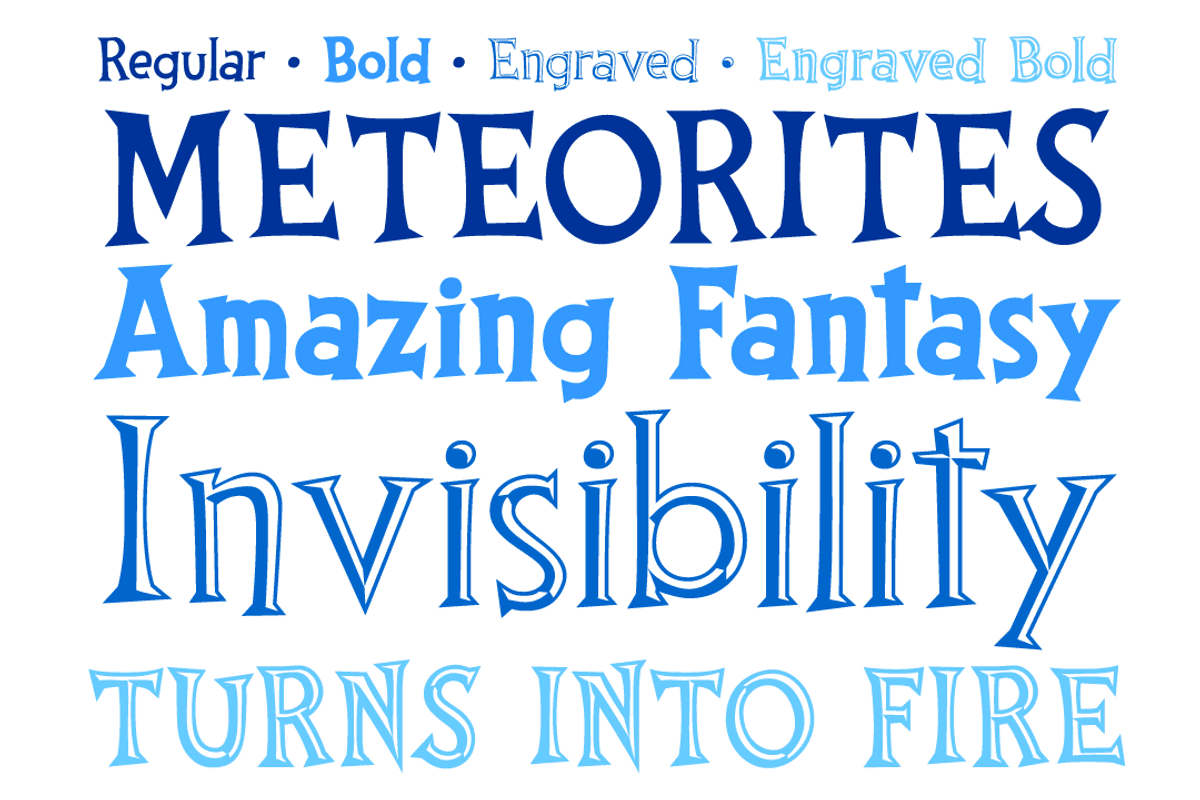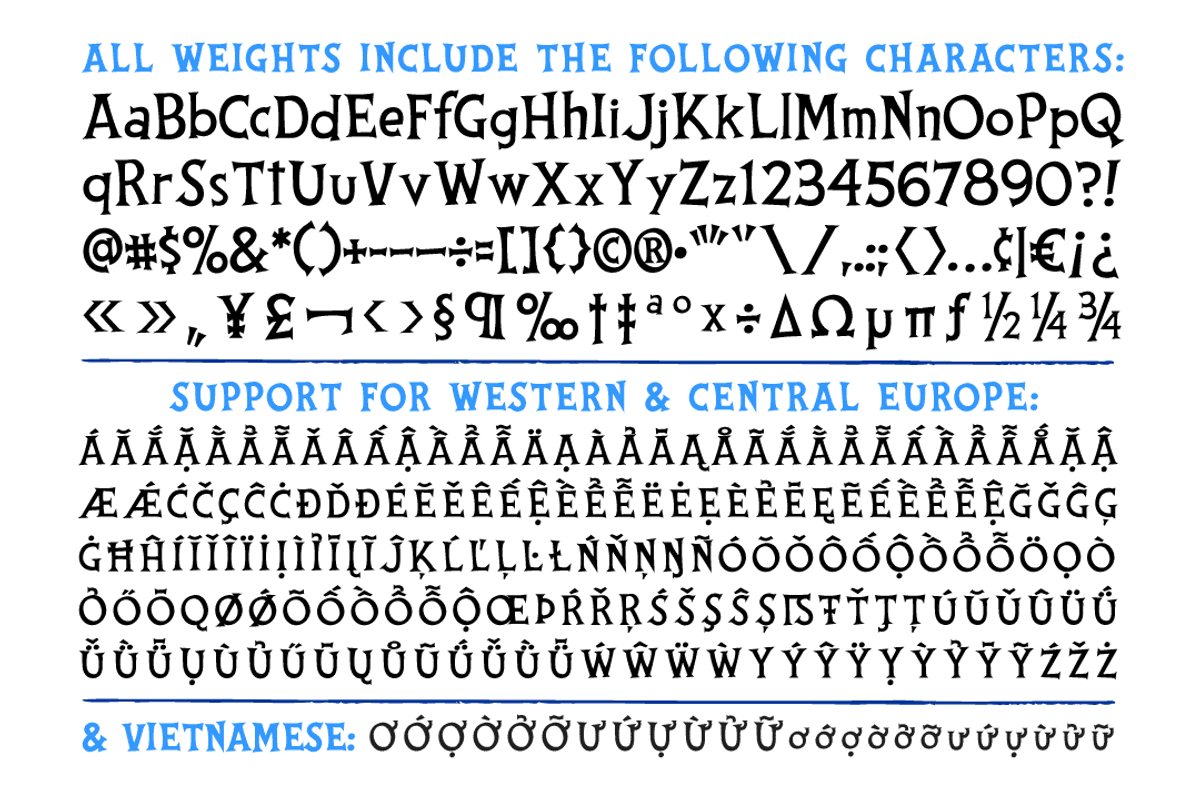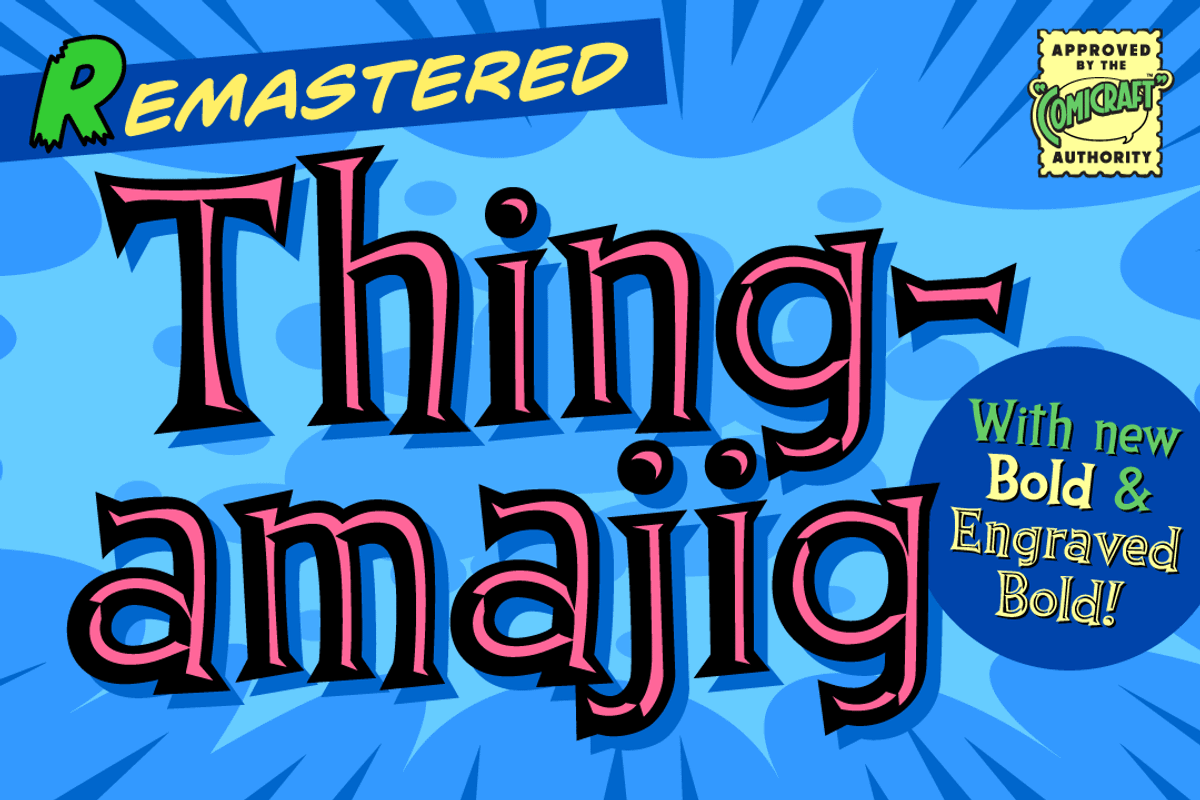
Thingamajig bouncy retro comic font
So ya finally wangled yer widget out from between the framistat and the whatchamacallit, ya assembled yer Avengers and ya hooked up yer hoojamajigger to the doohickey. But ya still ain't gonna get yer contraption to work until ya plug the widget into the thingamajig! Sheesh! Wotta Revoltin' development!
Thingamajig includes four weights with European & Vietnamese language support.